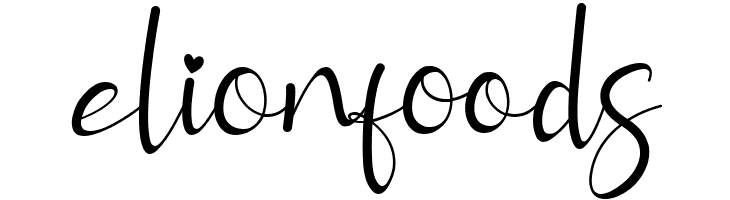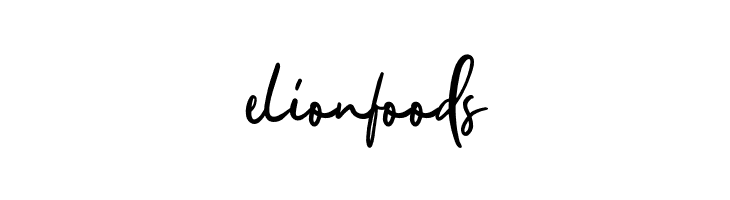
A bold, handwritten script font with a lively and modern style.
An elegant, expressive script font with fluid, dynamic strokes and artistic flair.
A fluid and elegant script font with a handwritten style.
A lively and fluid script font with a natural, handwritten style.
A lively handwritten font with fluid and dynamic strokes.
A bold, expressive script font with flowing, cursive letterforms.
An elegant, flowing script font with bold uppercase and delicate lowercase letters.
A bold, expressive script font with dynamic, flowing letterforms.
A bold, high-contrast script font with elegant flourishes and a handwritten feel.
A graceful, flowing script font with interconnected letters and a hand-drawn feel.